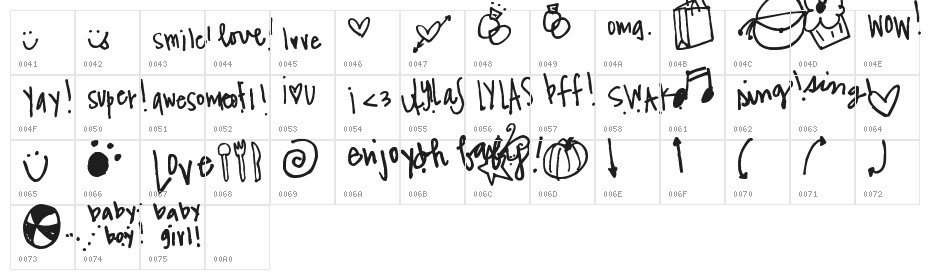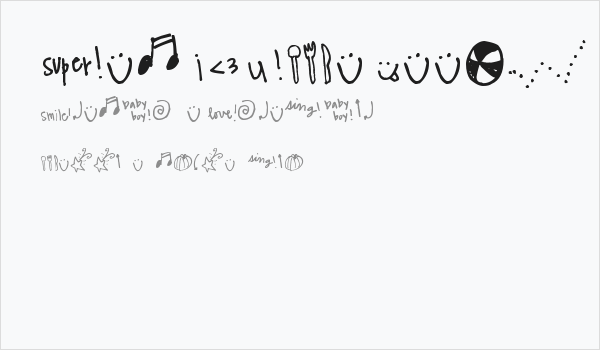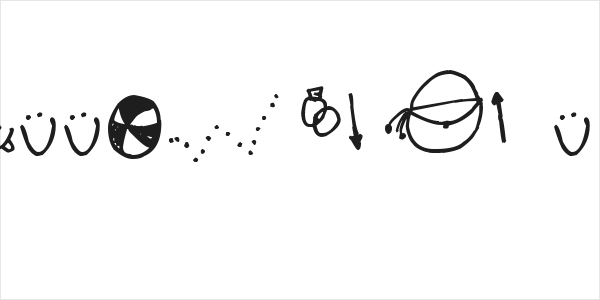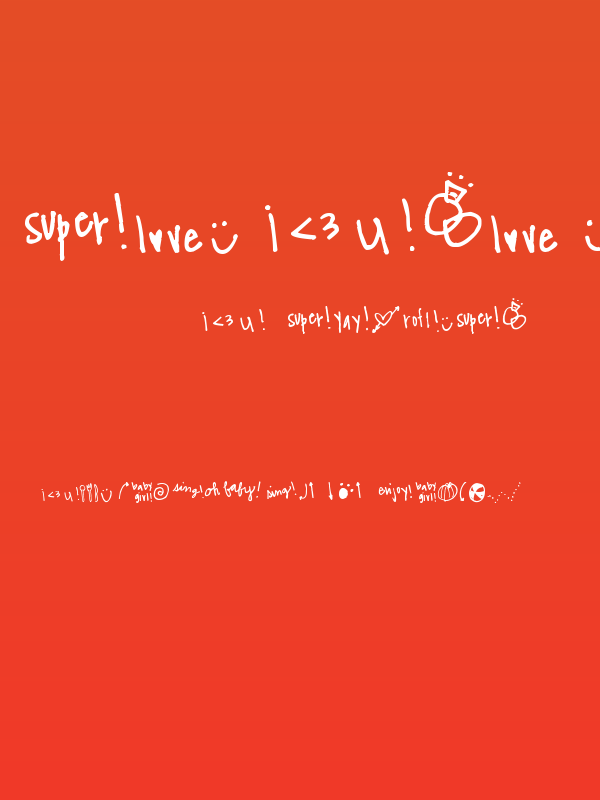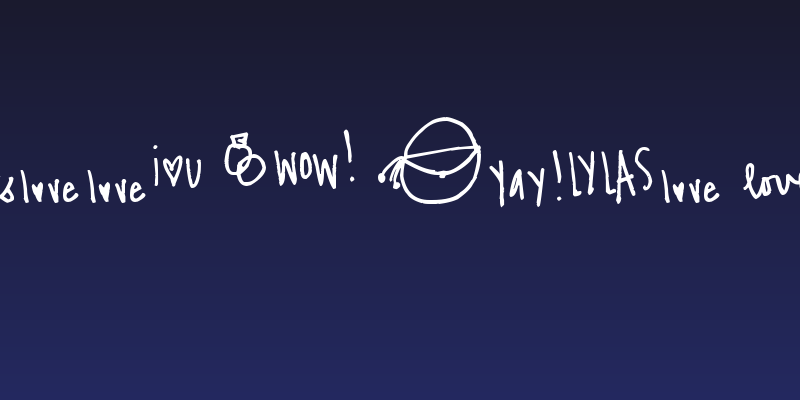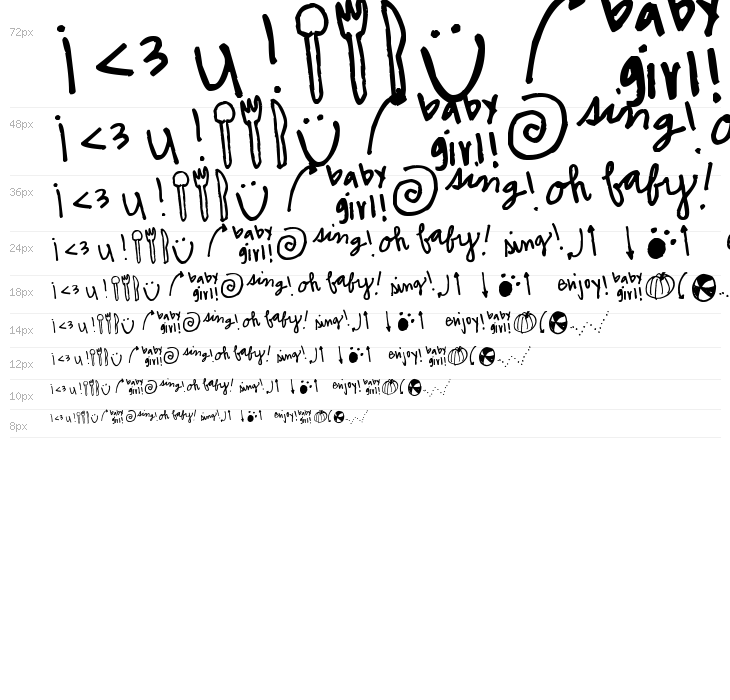
Pea The Bees In Love Doodles Font
Pea The Bees In Love Doodles Description
This playful and whimsical font is characterized by its hand-drawn doodles and casual lettering style. It features a variety of charming illustrations such as hearts, arrows, musical notes, and other playful symbols that add a fun and lively touch to the text. The letters are irregular and free-spirited, giving it a personal and informal feel. This font is perfect for projects that require a lighthearted and creative vibe, such as greeting cards, children's books, or playful branding materials. Its unique style makes it stand out, adding a touch of personality and charm to any design.
| Overall Style | Whimsical, Playful |
| Use Case | Decorative text, Creative projects |
| Proposed Projects | Ideal for greeting cards, children's books, playful branding, and creative projects. |